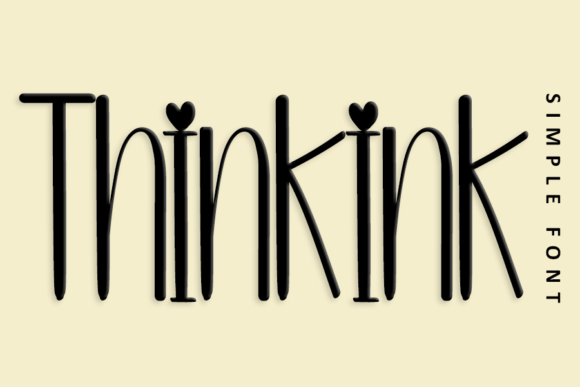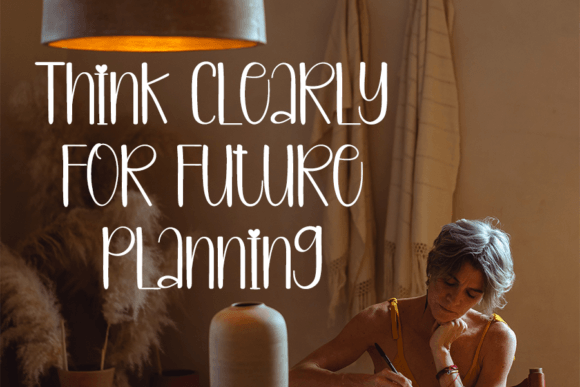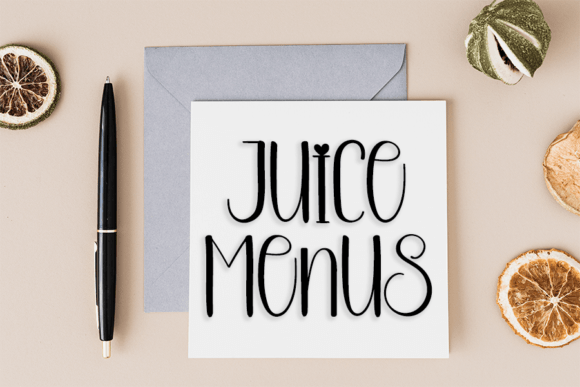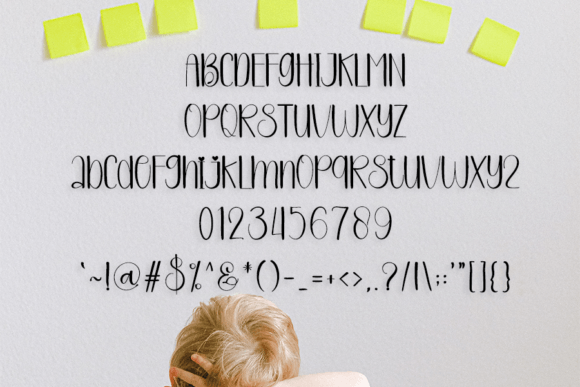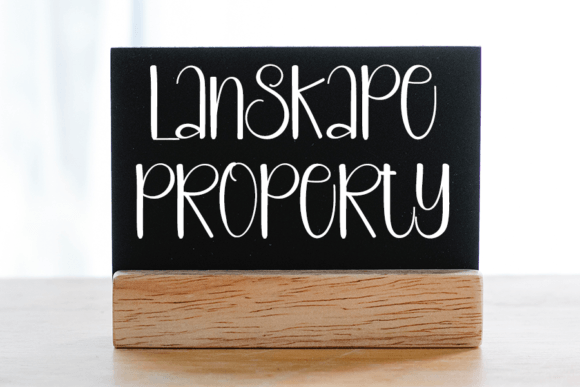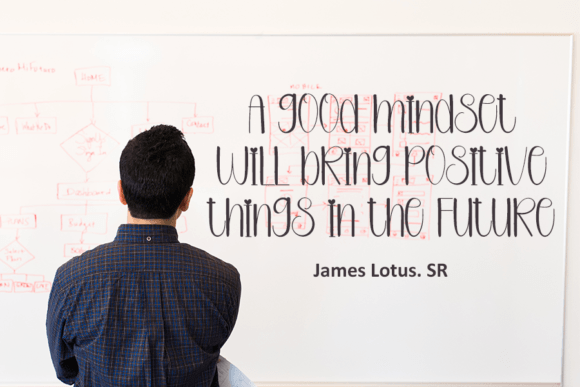
Thinkink Font
**Thinkink: A Classy and Elegant Handwritten Font for Versatile Designs**
Thinkink is a beautiful handwritten font that effortlessly combines class, elegance, and modernity. Its classy, elegant, and contemporary appearance makes it a versatile choice for a wide range of design projects, including logos, branding, invitations, stationery, wedding designs, social media posts, and more.
The font’s sophisticated and refined style adds a touch of timeless elegance to your creations, making them stand out with a sense of beauty and grace. Whether you’re working on a high-end branding project, crafting wedding invitations that exude romance, or designing polished social media graphics, Thinkink is a font that adapts effortlessly to your needs.
Thinkink’s modern and well-balanced characters ensure that your text remains both stylish and easily readable, regardless of the context. Its versatility makes it an invaluable tool in your design arsenal.
In summary, Thinkink is a beautiful and refined handwritten font that infuses a sense of class, elegance, and modernity into your designs. Its adaptability and timeless appeal make it a fantastic choice for projects that demand sophistication and contemporary flair. Select Thinkink to bring a touch of beauty and grace to your creative work.